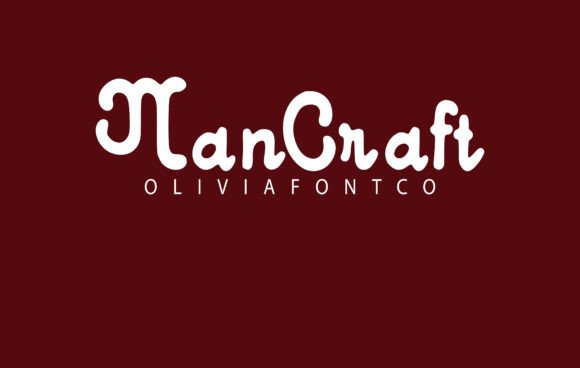
Mancraft Font: Elevate Your Creative Projects with a Romantic Handwritten Touch
In the world of typography, fonts play a crucial role in conveying the tone and personality of a brand or creative project. Among the numerous fonts available, the Mancraft Font stands out for its authentic handwritten style with a romantic touch. Designed to be a true favorite among designers and creative enthusiasts, this font has the potential to elevate your projects to new heights. In this article, we’ll explore the features, benefits, and usage ideas for the Mancraft Font, helping you understand why it’s an excellent choice for your next creative endeavor.
What is Mancraft Font?
The Mancraft Font is a beautifully crafted handwritten font that exudes a sense of romance and elegance. Its authentic, hand-crafted design makes it perfect for a wide range of applications, from magazine headlines and social media graphics to branding, wedding invitations, and more. This font is not just a simple typeface; it’s a tool that can add a personal touch to your designs, making them more relatable and engaging.
Key Features of Mancraft Font
- Legibility: One of the standout features of the Mancraft Font is its exceptional legibility. Whether used as a title or body text, this font remains clear and easy to read, ensuring your message is conveyed effectively.
- Romantic Touch: The font’s romantic touch sets it apart from more conventional typefaces. It adds a layer of sophistication and charm to your designs, making them more captivating and memorable.
- Versatility: The Mancraft Font is incredibly versatile, suitable for a variety of design projects. Its flexibility makes it a valuable asset for designers who need a reliable font that can adapt to different contexts.
- Authentic Handwritten Style: The font’s authentic handwritten style gives it a unique personality that can help your designs stand out in a crowded digital landscape.
Benefits of Using Mancraft Font
The Mancraft Font offers several benefits that make it an attractive choice for designers and creative professionals. Some of the key advantages include:
- Enhanced Creativity: With the Mancraft Font, you can add a creative twist to your projects, making them more engaging and visually appealing.
- Time-Saving: The font’s legibility and versatility save you time and effort, as you can use it across various projects without needing to switch between different typefaces.
- Professional Look: The font’s elegant and romantic style gives your designs a professional look, helping you establish a strong brand identity.
- Emotional Connection: The handwritten nature of the Mancraft Font helps create an emotional connection with your audience, making your message more relatable and impactful.
Usage Ideas for Mancraft Font
The Mancraft Font’s versatility makes it suitable for a wide range of design projects. Here are some usage ideas to get you started:
- Magazine Headlines: Use the Mancraft Font to create eye-catching headlines that grab readers’ attention and set the tone for your content.
- Social Media Graphics: Add a personal touch to your social media posts and stories with this font, making your content more engaging and shareable.
- Branding: Establish a strong brand identity with the Mancraft Font, using it consistently across your marketing materials, website, and social media channels.
- Wedding Invitations: The font’s romantic style makes it perfect for wedding invitations, adding a touch of elegance and sophistication to your designs.
- Cards and Stationery: Use the Mancraft Font to create beautiful cards, stationery, and other paper goods that showcase your personal style.
Tips for Using Mancraft Font Effectively
To get the most out of the Mancraft Font, consider the following tips:
- Pair it with Other Fonts: Experiment with pairing the Mancraft Font with other typefaces to create visual interest and hierarchy in your designs.
- Adjust Font Sizes: Play with font sizes to emphasize certain elements and create a clear visual flow in your designs.
- Use Color Strategically: Choose colors that complement the font and enhance the overall aesthetic of your design.
- Keep it Simple: Don’t over-accessorize your design. The Mancraft Font’s elegance and simplicity are its strengths, so let them shine.
The Mancraft Font is a beautiful, authentic handwritten font with a romantic touch that can elevate your creative projects to new heights. Its legibility, versatility, and unique style make it an excellent choice for a wide range of design applications. By incorporating the Mancraft Font into your designs, you can add a personal touch, create an emotional connection with your audience, and establish a strong brand identity. Whether you’re a designer, entrepreneur, or creative enthusiast, this font is sure to become a true favorite in your toolkit.
- Is the Mancraft Font suitable for body text?
- Yes, the Mancraft Font is legible and can be used for both title and body text.